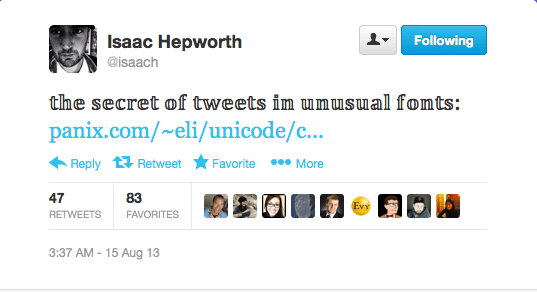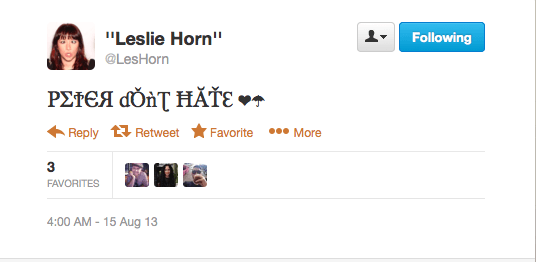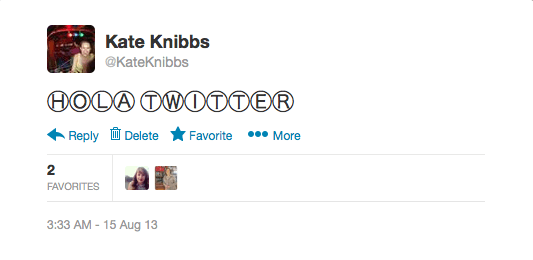
Want to fancy up your tweets? This simple hack brings fun fonts to Twitter
Before today, we had to take a page from of the Kanye West School of Capitalizing Everything if we wanted to emphasize something on Twitter. Or do *this* which is almost more annoying THAN THIS. Although Twitter let users tweet emojis, it didn’t offer options for switching up font size or underlining our most important tweets.
But no longer. Isaac Hepworth, who works on special projects at Twitter, unveiled the secret to spicing up your tweets with special characters.
Hepworth linked to a Unicode text converter, and it makes putting tweets into special characters extremely easy. Just type the tweet into the converter and it will show all of the options, which include basics like bold, italics, and script, as well as more unusual choices like Faux Cyrillic and upside-down text. You then just copy and paste the sentence or phrase into your Twitter text box, and there you have it: fancy tweets.
So now your tweets can look like this: Screen Shot 2013-08-14 at 3.47.41 PM
Or even this:Screen Shot 2013-08-14 at 3.41.46 PM
But not everyone is enthusiastic about this development.
And they might have a point – some of these font options are genuinely helpful, like italics, but a lot of them are kind of annoying to look at. And we all know that giving users free reign over design can turn a social network into an aesthetic terrorscape (cough, MySpace, cough) so this might end up making Twitter uglier.
Then again, people who are really bothered by users who tweet in fancy characters can just block them and keep their Twitter experience old school, so who cares?
As long as they don’t make a Comic Sans option, it’ll be OK.